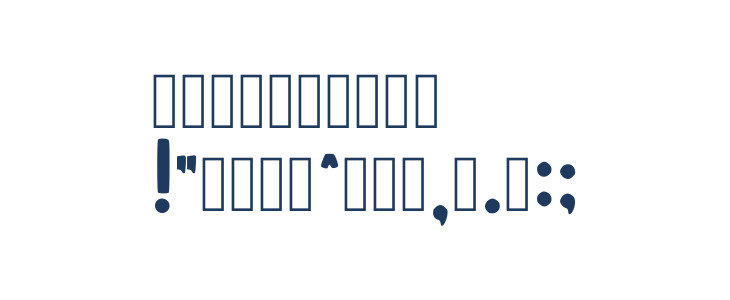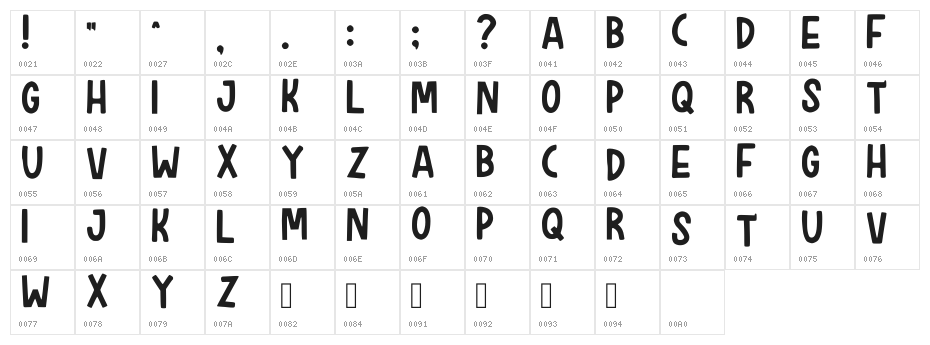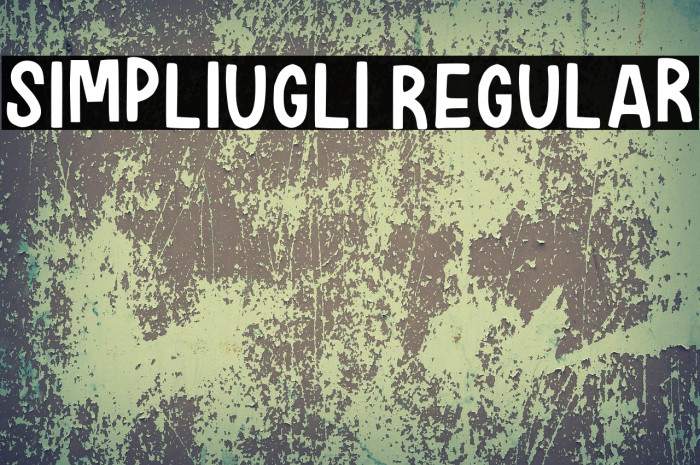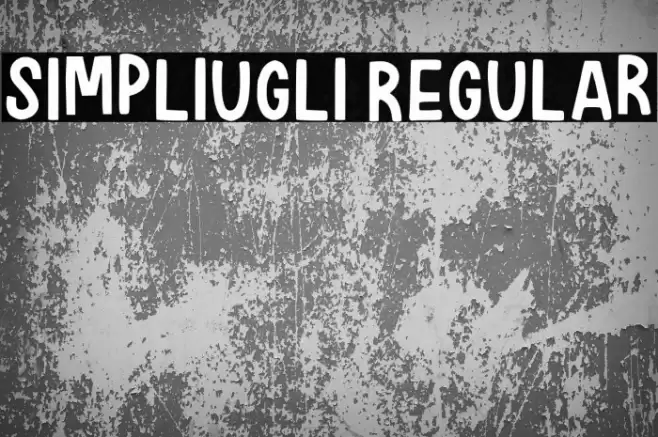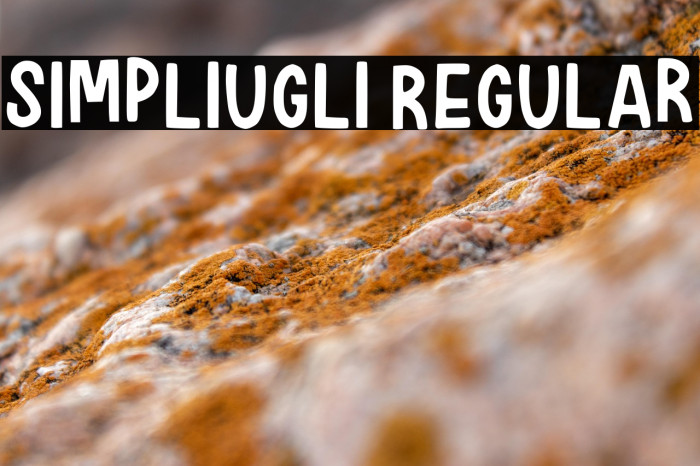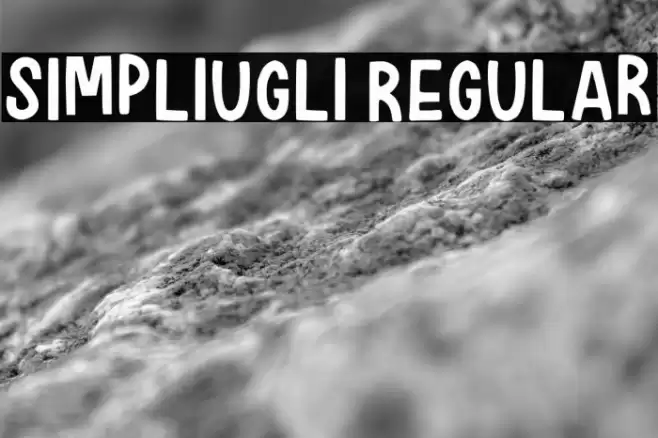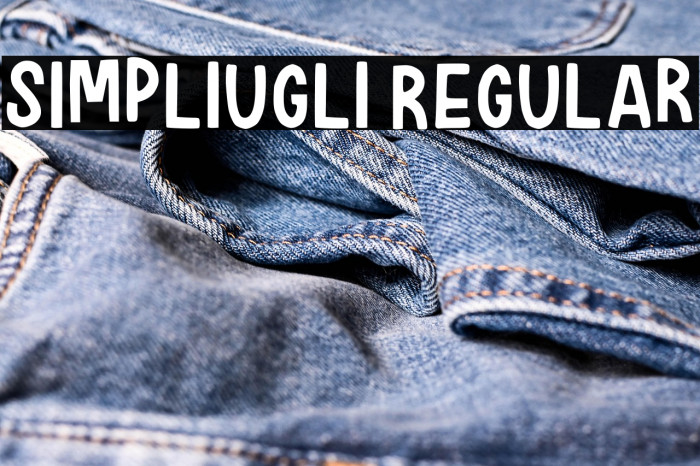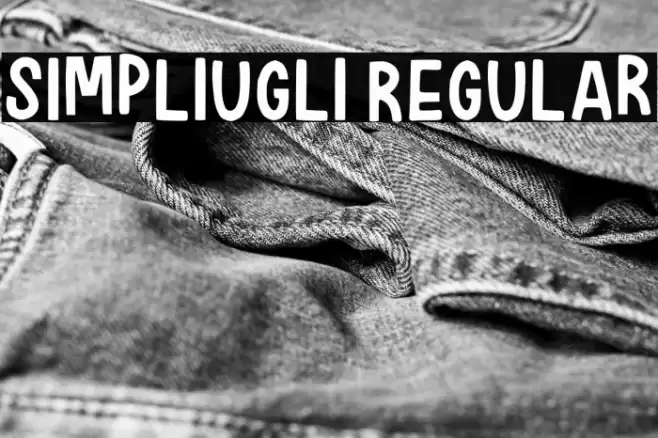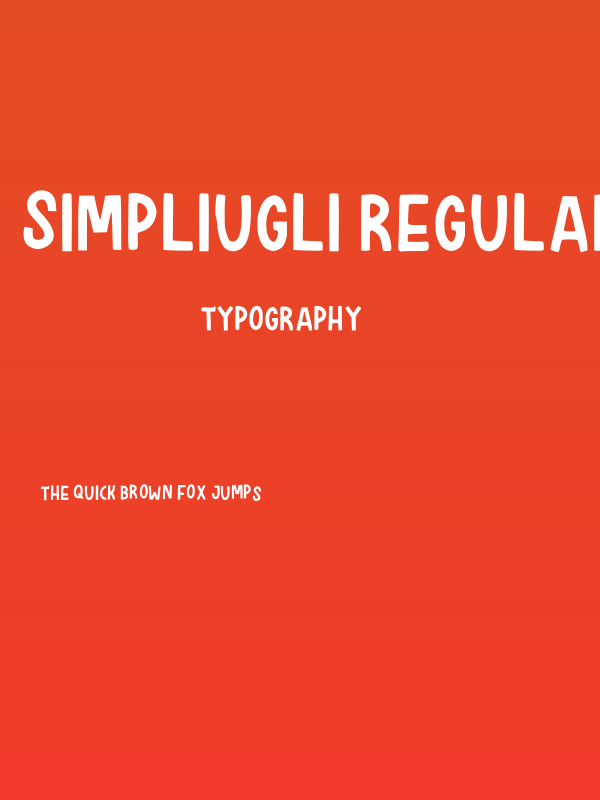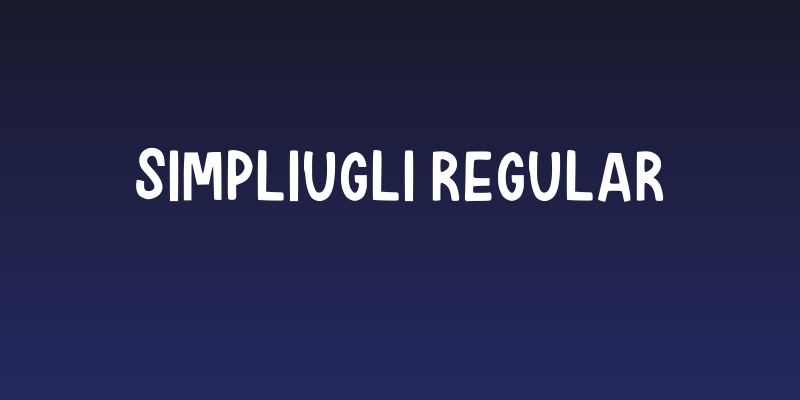
Simpliugli Regular Font
Simpliugli Regular Description
This font features a playful and bold design with a hand-drawn aesthetic. The characters are slightly irregular, giving it a whimsical and informal feel. The strokes are thick and consistent, creating a strong visual impact. The uppercase letters are prominent and well-defined, while the lowercase letters maintain a similar style with a slightly more compact form. The numbers and special characters follow the same playful theme, making it suitable for creative and fun projects. The overall appearance is casual and approachable, perfect for designs that aim to convey a sense of friendliness and creativity.
| Proposed Projects | Ideal for children's books, playful branding, casual invitations, and creative posters. |